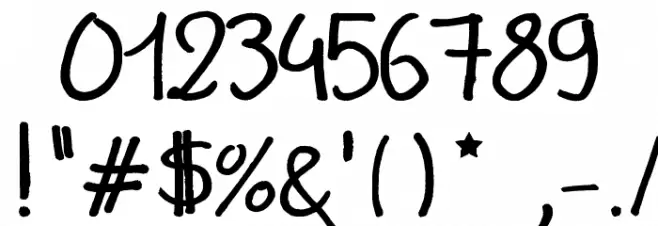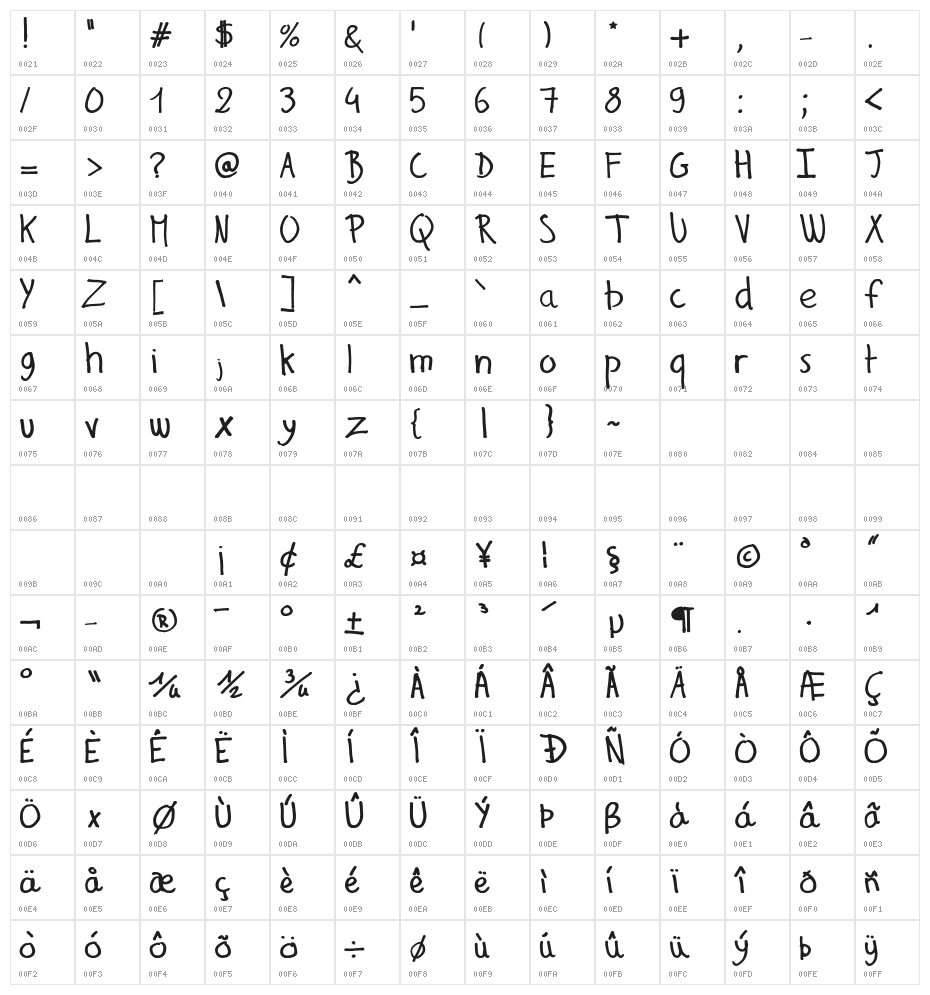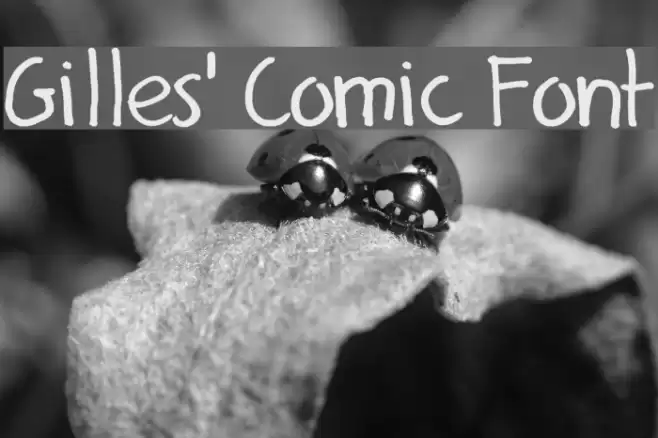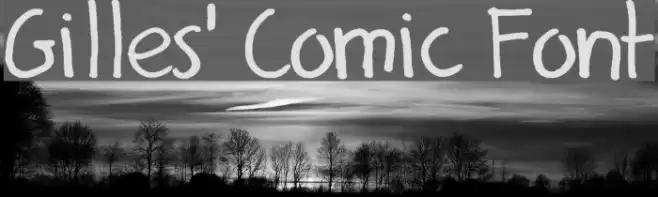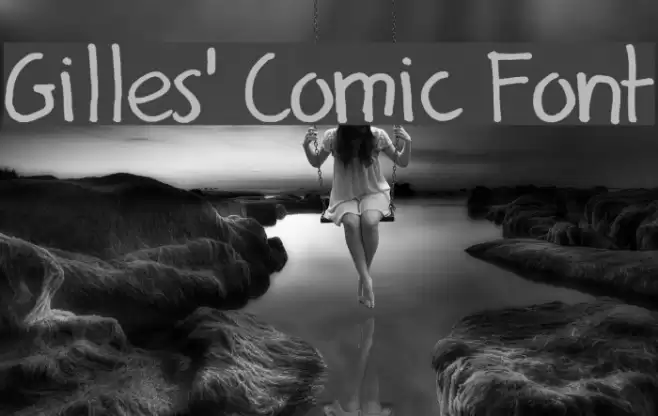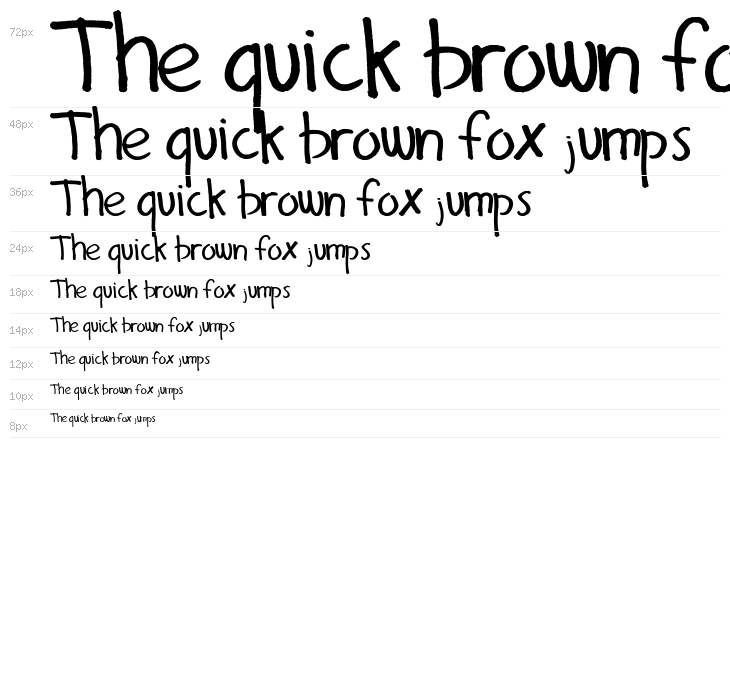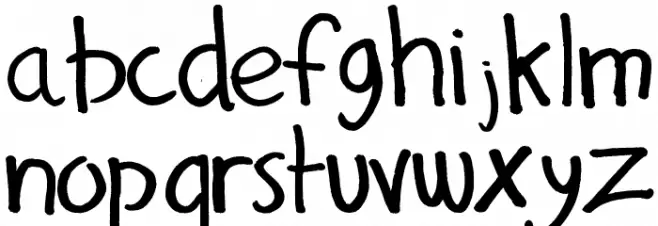
Gilles' Comic Font Font
Gilles' Comic Font Description
This playful and informal font features a hand-drawn, comic style that exudes a sense of fun and creativity. The characters are slightly irregular, with a casual, friendly appearance that mimics handwriting. The uppercase and lowercase letters maintain a consistent style, with rounded edges and a slightly uneven baseline that adds to the whimsical feel. Numbers and special characters are designed to match the overall playful aesthetic, making this font ideal for projects that require a lighthearted and approachable tone.
| Use Case | Headlines, Informal text, Children's content |
| Proposed Projects | Ideal for children's books, comic strips, playful branding, greeting cards, and informal invitations. |